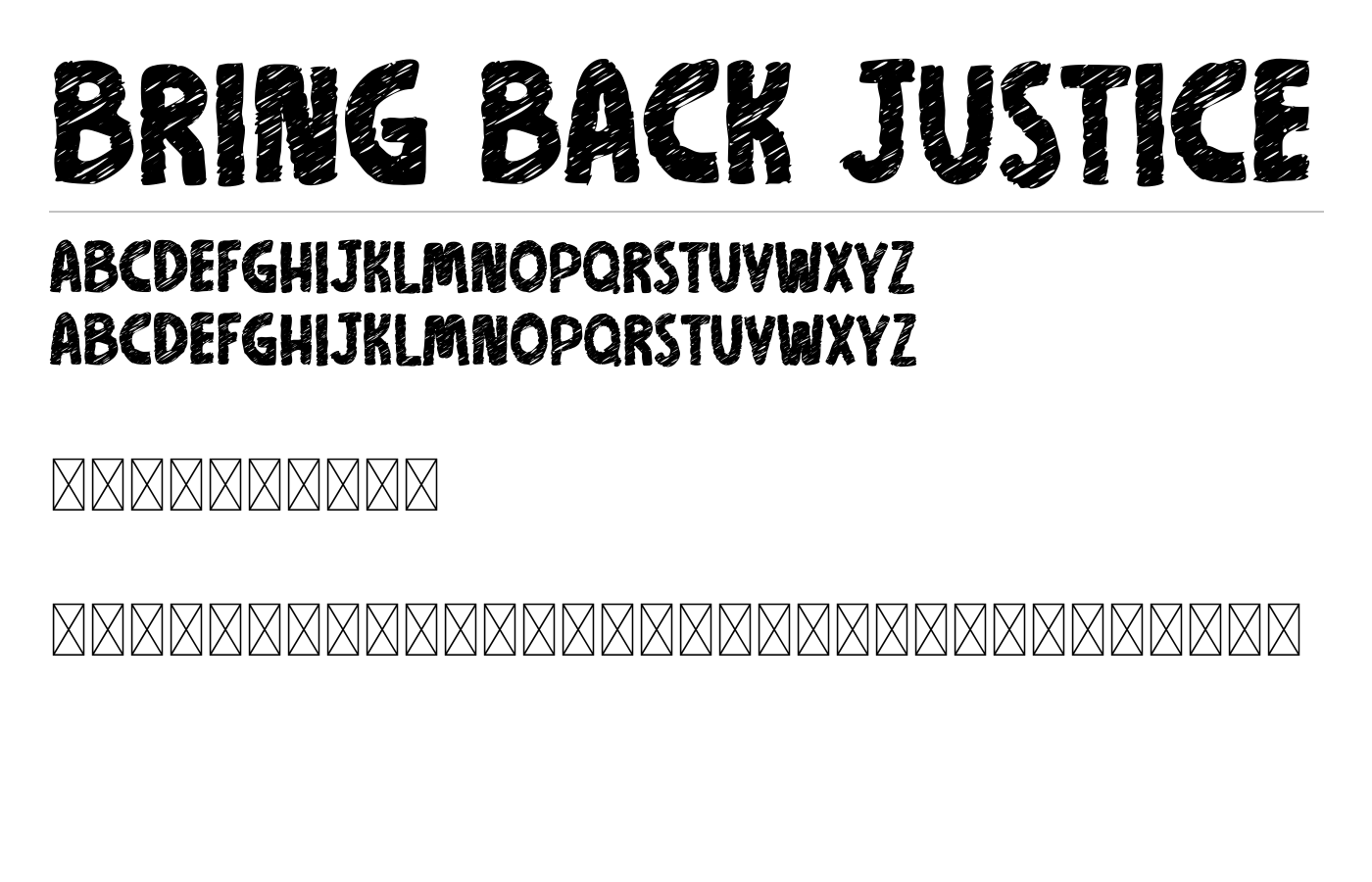
Bring Back Justice is a bold, condensed sans-serif font with a rough, hand-drawn texture that gives it a strong, rebellious character. Its uppercase-only design and dense letterforms make it perfect for impactful headlines, posters, or branding that aims to convey urgency and raw energy. This font works well for activist campaigns, streetwear, or any creative project needing a gritty, expressive style with a modern edge.
Bring Back Justice Font
About Bring Back Justice Font